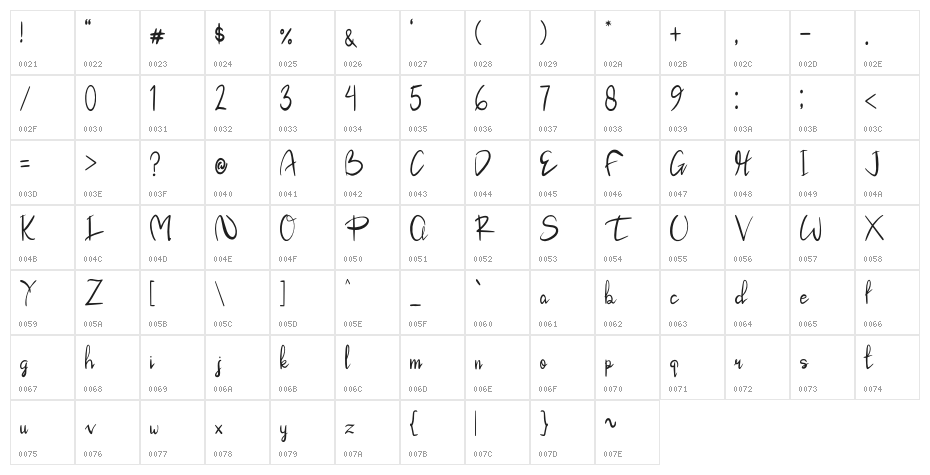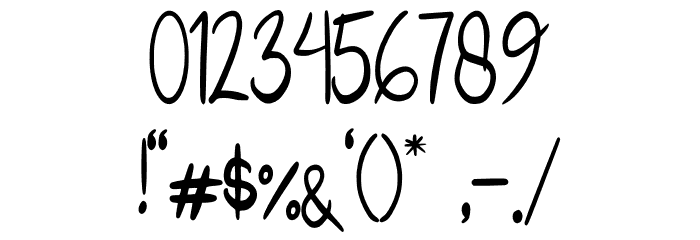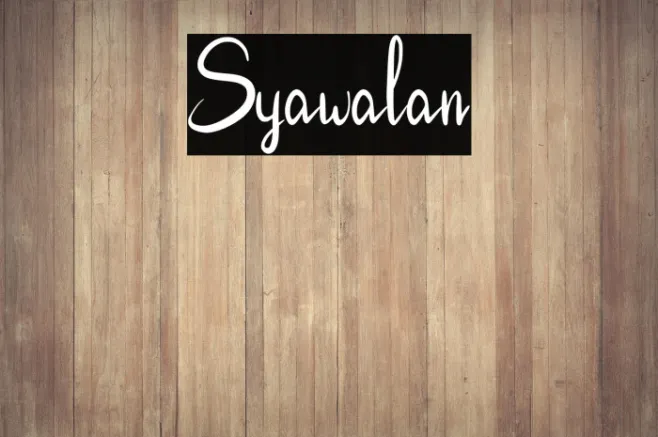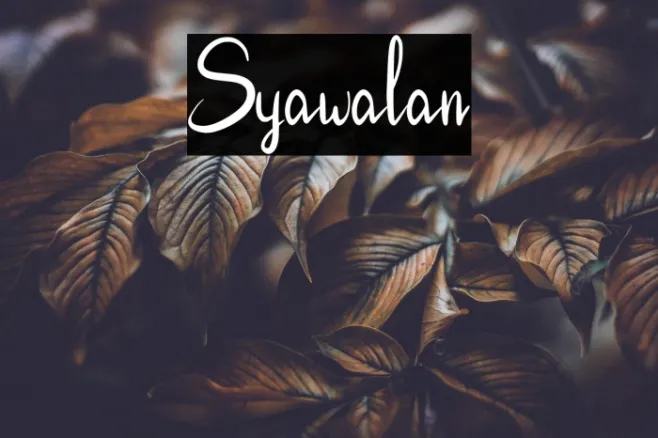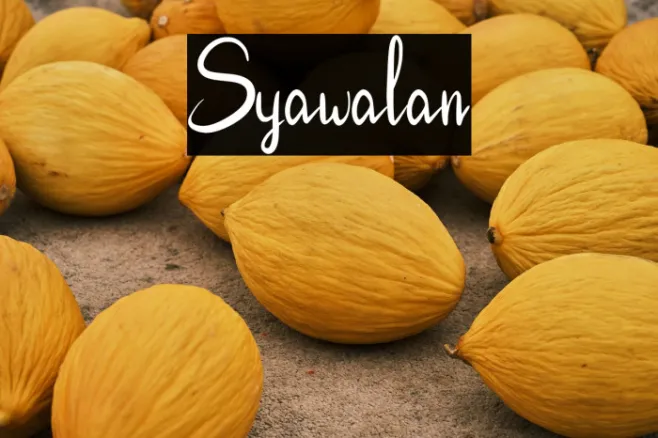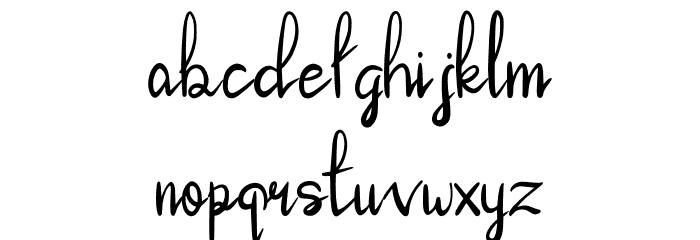
Syawalan Font
Syawalan Description
This font exhibits a lively and dynamic handwritten style, characterized by its fluid and organic strokes. The uppercase letters are tall and slightly slanted, giving a sense of movement and energy. The lowercase letters maintain a consistent flow, with some characters featuring loops and curves that enhance the handwritten feel. The numerals are playful and match the overall aesthetic, while the special characters are well-integrated, maintaining the font's cohesive appearance. The font's informal and friendly nature makes it suitable for projects that require a personal touch.
| Proposed Projects | Ideal for greeting cards, invitations, personal branding, and creative projects that benefit from a personal, informal touch. |